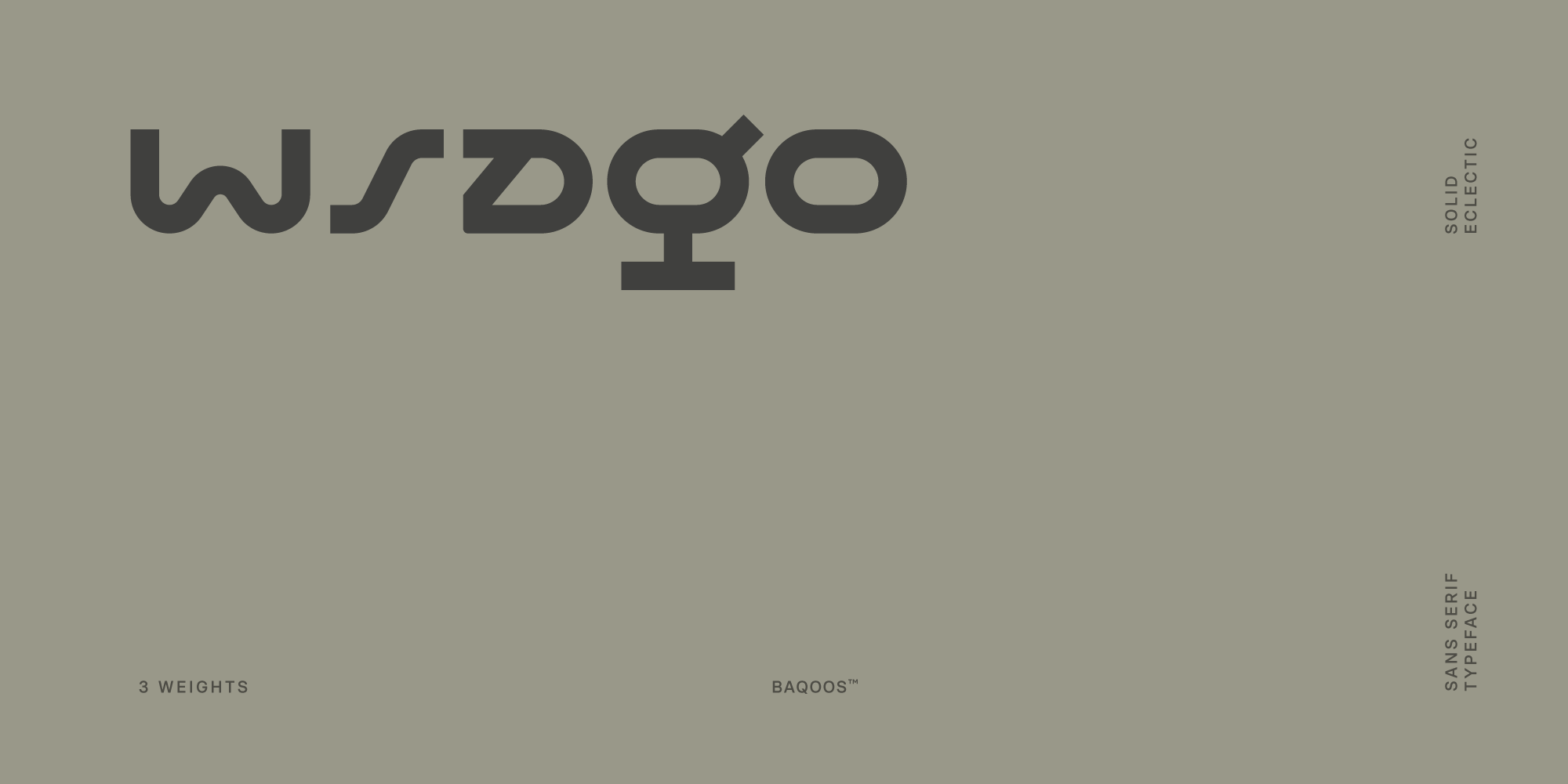
Wsago Font is a dynamic and contemporary typeface, perfect for designs that aim for a bold, impactful, and modern aesthetic. Imagine it featured prominently on the packaging for a cutting-edge tech gadget, giving a strong and clear presence to headlines on a digital news platform, or adding an energetic touch to branding for an action-oriented sports event. Its robust and often geometric design makes it exceptionally well-suited for striking logos, large-format displays, and any digital or print media where high visibility and a distinct personality are key. From impactful advertising campaigns to futuristic user interfaces, this font brings a powerful and memorable visual statement.
What makes Wsago Font so exciting is its ability to blend strong geometric foundations with a unique and often angular personality. It’s designed to stand out, offering a modern edge that can convey innovation, strength, and precision. This isn't a subtle background font; it's a typeface that demands attention and communicates a clear, confident message. Its clean lines and assertive forms ensure excellent readability even when used for dramatic effect, making it an ideal choice for brands and projects that want to project a forward-thinking and authoritative image.
The Wsago Font family typically offers a focused yet effective range of weights, designed to maximize its impact and versatility. While it might not have the extensive variations of a large text family, you can usually expect to find options such as Regular, Medium, and Bold, often accompanied by corresponding italic versions. This selection is carefully chosen to allow designers to create strong visual hierarchies, emphasizing key information and maintaining a cohesive, impactful style across different applications. These variations help ensure that the font maintains its powerful character whether used for headlines or subheadings.